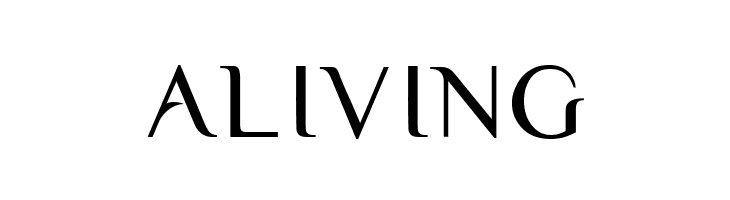
LinikSans-ExtraLight Font
- Font: LinikSans-ExtraLight
( Fonts by Erico Lebedenco - www.ericolebedenco.com )
A whimsical serif font with decorative and magical elements.